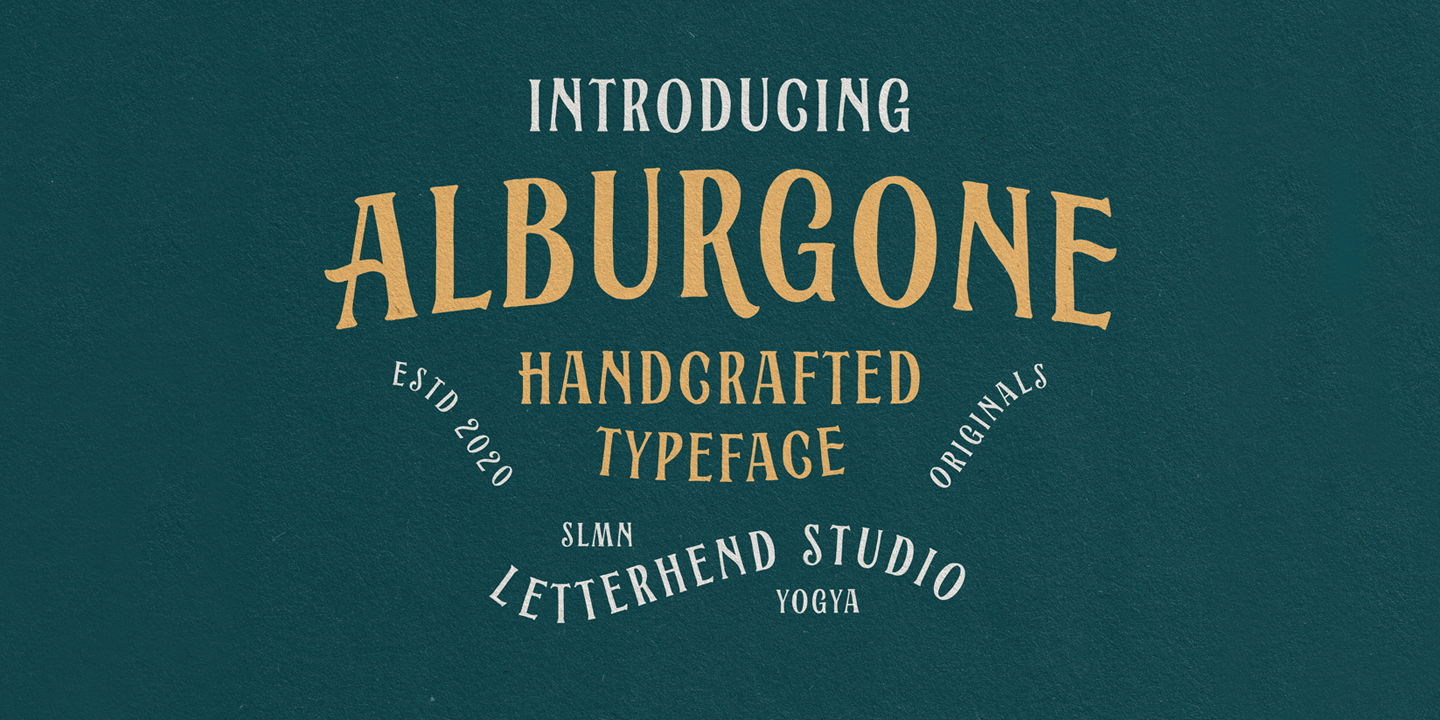
Alburgone
Vintage charm at its finest - are you searching for a font that radiates warmth, whimsy, and a bygone era's sense of nostalgia? Look no further than a font like Alburgone. This display font is a masterclass in evoking the past, with its playful, hand-crafted quality that feels straight out of a treasured family heirloom or a dusty old book.
With its distressed texture and ornate flourishes, Alburgone's vintage aesthetic is sure to transport your design to a bygone era. Perfect for projects that require a touch of nostalgia, whimsy, or romance - think wedding invitations, retro-themed posters, or antique-inspired branding. The font's playful nature also makes it an excellent choice for creative, artistic pursuits, such as typography art, journaling, or scrapbooking.
If you're looking to add a pinch of old-world charm to your design without feeling too kitschy or over-the-top, Alburgone is the perfect companion. Its unique blend of elegance and playfulness will leave your audience with a lasting sense of wonder and curiosity. So go ahead, get nostalgic, and let Alburgone's vintage magic guide your creative vision!